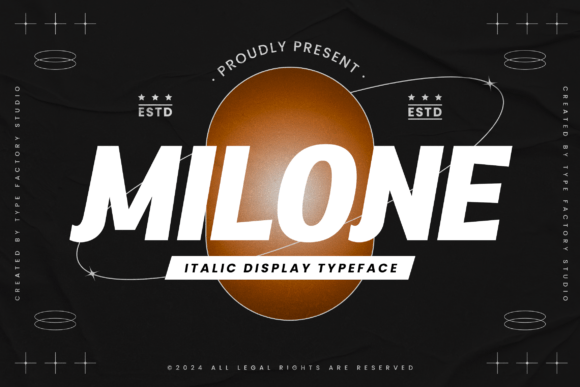
Milone: The Chic Italic Display Font for Handmade Creators
Milone transforms any handmade project into a statement piece by blending fluid motion with sophisticated elegance. As a Display typeface, this Fonts collection offers the perfect balance of style and readability for creators who demand professional results from their physical products. Whether you are designing intricate wedding stationery or bold signage for a boutique shop, Milone brings a dynamic flair that elevates brand identity instantly.
Milone for Wedding Invitations and Elegant Branding
When you need to Accentuate your designs with Milone, the result is an immediate sense of luxury and movement that resonates with high-end clients. This chic, italic display font seamlessly fuses dynamism with elegance, making it an ideal choice for wedding invitations, save-the-dates, and reception signage. The diagonally slanted characters convey a feel of fluid motion, guiding the eye smoothly across the page just like a handwritten script but with the structural integrity needed for print production. For boutique branding, using Milone on business cards or packaging tags ensures that your name stands out with a sleek style that feels both modern and timeless. Unlike standard serif fonts that can appear static, Milone adds a layer of artistic personality that makes your stationery feel bespoke and carefully curated.
Milone for Product Labels and Sticker Designs
Crafters selling handmade goods often struggle to find a Display font that looks good at small sizes while maintaining its unique character. Milone solves this problem perfectly, as its sleek style remains legible even on tiny product labels, bottle caps, or die-cut stickers. The diagonally slanted characters convey a feel of fluid motion that suggests freshness and quality, which is essential for food items like candles, soaps, or baked treats. When creating a cohesive line of Fonts for your shop, Milone provides a consistent visual thread that ties together everything from jar tags to shipping envelopes. Its dynamic nature prevents the design from looking too rigid, allowing your product to feel artisanal and handcrafted rather than mass-produced.
Milone for Cricut and Silhouette Cut Files
For users of cutting machines like Cricut and Silhouette, finding a milone file that cuts cleanly without losing detail is crucial for successful vinyl projects. This chic, italic display font seamlessly fuses dynamism with elegance, ensuring that every letter holds up under the pressure of weeding and application. The sleek style works beautifully for farmhouse signs, kitchen decor, and seasonal wall art where the diagonal slant adds energy to the room's aesthetic. Because the diagonally slanted characters convey a feel of fluid motion, the cut lines flow naturally, reducing the risk of fragile cross-overs that often plague complex scripts. Whether you are designing large-scale decals for mugs or small text overlays for t-shirts, Milone delivers the precision required for commercial-grade vinyl work.
Milone for Printable Wall Art and Digital Downloads
Sellers of digital downloads know that the right Display font can be the deciding factor in a customer clicking "Buy Now." Milone offers a premium look that justifies a higher price point for printable wall art, planner pages, and greeting card templates. By choosing to Accentuate your designs with Milone, you create assets that feel expensive and polished, encouraging buyers to use them for personal gifts or home decor. The diagonally slanted characters convey a feel of fluid motion that mimics the stroke of a calligraphy pen, adding warmth to digital files that might otherwise feel cold or robotic. This versatility allows you to offer a wide range of products, from minimalist quotes to elaborate holiday cards, all unified by the same elegant typography.
Milone for Social Media Graphics and Marketing Materials
In the fast-paced world of social media marketing, a Fonts selection must grab attention within seconds to stop the scroll. Milone’s chic, italic display font seamlessly fuses dynamism with elegance, making it perfect for Instagram stories, Pinterest pins, and promotional banners. The sleek style ensures that your brand message is read quickly while still conveying a sense of sophistication and trust. Since the diagonally slanted characters convey a feel of fluid motion, your graphics will feel alive and engaging rather than stagnant. For small business owners, using Milone consistently across all marketing channels builds a strong brand identity that customers recognize instantly, turning casual followers into loyal patrons.
Practical Tips for Using Milone in Commercial Projects
While Milone is a powerful tool for creativity, understanding how to pair it correctly enhances its impact. Pairing this expressive italic Display font with a clean sans serif font creates a balanced hierarchy, allowing your headlines to shine while keeping body text readable. Alternatively, combining Milone with a simple serif font can add a touch of classic refinement to your designs. When working on physical products, always test your Milone files at actual size to ensure the diagonally slanted characters remain clear and do not blur during printing. Remember to check your licensing agreement; most commercial licenses allow you to sell physical products created with these Fonts, such as shirts, tote bags, and signs, but restrictions may apply to reselling the font file itself. By mastering the sleek style of Milone, you empower your craft business to deliver designs that are not only beautiful but also commercially viable and professionally finished.